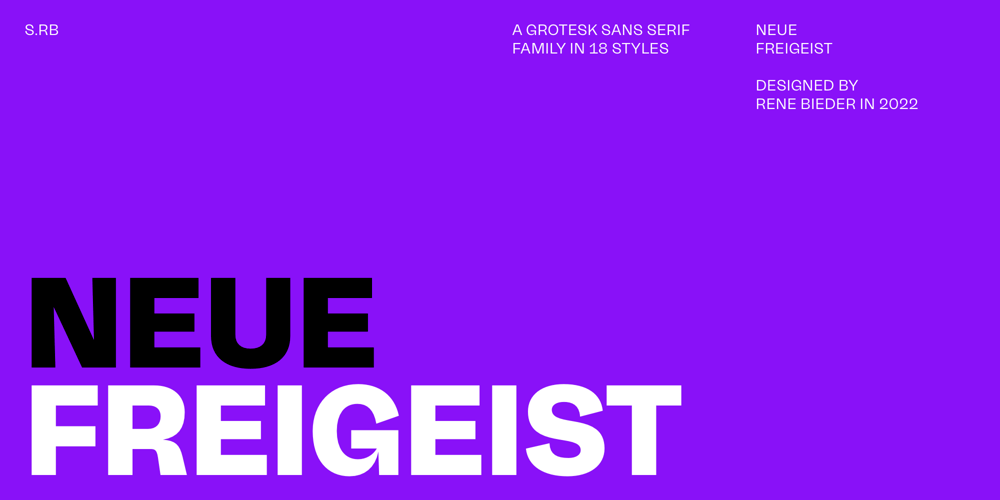
Neue Freigeist Font Family was designed by René Bieder and published by René Bieder. Neue Freigeist contains 18 styles and family package options. The early Grotesk typefaces, with their untamed and uninhibited nature, exuded the vibrant energy of the golden age of type design. Building upon this legacy, the Neue Freigeist family takes inspiration from those influential stages of the Grotesk style spanning from 1850 to 1950, seamlessly bridging the past with the present. In essence, Neue Freigeist is an aged typeface with a youthful expression, a true testament to its paradoxical nature. Neue Freigeist encapsulates the rich heritage of typography and brings forth a fresh, innovative voice that resonates with modern design sensibilities.